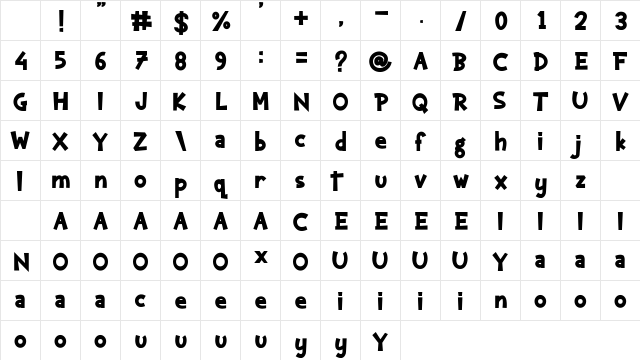
Kaharsa is a composed and adaptable typeface that performs quietly and consistently across a wide range of design contexts.
Pro Tip: Use Kaharsa in both headline and body roles to test its range before committing to a single application.